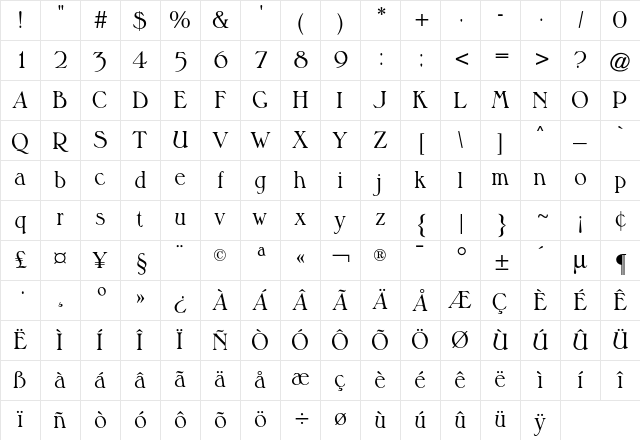
Complete Musketeer CG Regular glyph index. Displaying only characters natively supported by Musketeer CG Regular font.
Musketeer CG is a composed and adaptable typeface that performs quietly and consistently across a wide range of design contexts.
Pro Tip: Use Musketeer CG in both headline and body roles to test its range before committing to a single application.